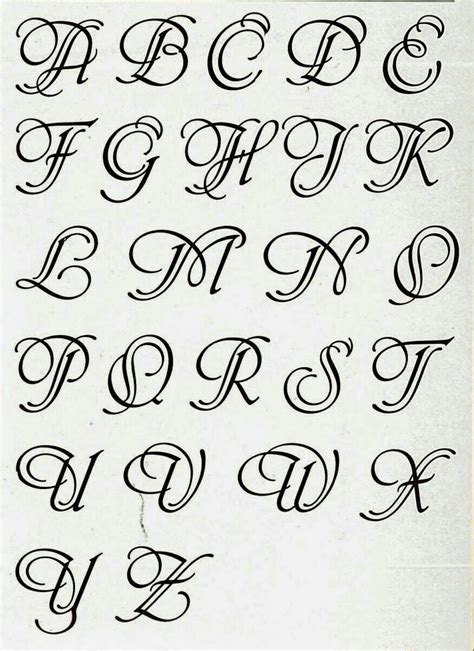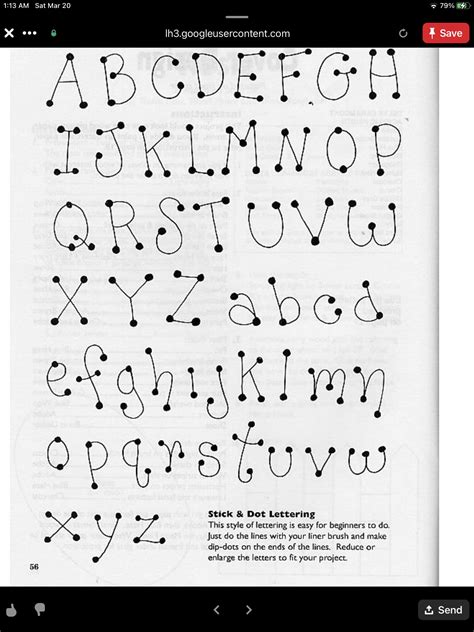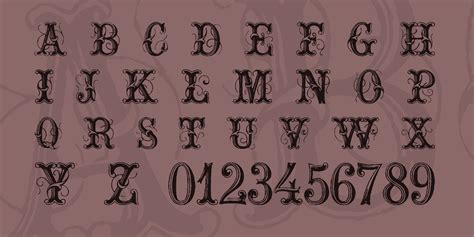
In the world of graphic design and typography, the art of lettering styles and fonts plays a pivotal role in conveying messages effectively. Whether you're designing a logo, creating a poster, or crafting a website, the choice of lettering styles and fonts can significantly impact the overall aesthetic and readability of your work. This blog post delves into the intricacies of lettering styles and fonts, exploring their importance, different types, and how to choose the right ones for your projects.
Understanding Lettering Styles and Fonts
Lettering styles and fonts are the building blocks of typography. They encompass the design and arrangement of letters, numbers, and symbols. Understanding the basics of lettering styles and fonts is crucial for any designer aiming to create visually appealing and effective designs.
The Importance of Lettering Styles and Fonts
Lettering styles and fonts are more than just aesthetic choices; they serve functional purposes as well. Here are some key reasons why they are important:
- Readability: The primary function of any font is to ensure that the text is easily readable. Different fonts have varying levels of readability, and choosing the right one can make a significant difference in how well your message is conveyed.
- Brand Identity: Fonts are a crucial element of brand identity. A well-chosen font can help establish a brand's personality and make it more recognizable.
- Aesthetic Appeal: The visual appeal of a design is greatly influenced by the lettering styles and fonts used. Aesthetically pleasing fonts can enhance the overall look and feel of a design.
- Emotional Impact: Different fonts evoke different emotions. For example, serif fonts often convey a sense of tradition and reliability, while sans-serif fonts can appear modern and clean.
Types of Lettering Styles and Fonts
Lettering styles and fonts come in a wide variety of types, each with its unique characteristics. Here are some of the most common types:
Serif Fonts
Serif fonts are characterized by the small lines or strokes, known as serifs, that extend from the main strokes of the letters. These fonts are often associated with tradition and formality. Examples include Times New Roman and Georgia.
Sans-Serif Fonts
Sans-serif fonts do not have the small lines or strokes at the ends of the letters. They are often seen as more modern and clean. Examples include Arial and Helvetica.
Script Fonts
Script fonts mimic handwriting or calligraphy. They are often used for invitations, logos, and other designs where a personal touch is desired. Examples include Pacifico and Allura.
Display Fonts
Display fonts are designed for large sizes and are often used in headlines, posters, and other large-format designs. They can be highly decorative and are not typically used for body text. Examples include Lobster and Playfair Display.
Monospaced Fonts
Monospaced fonts have uniform width for each character, making them ideal for coding and other technical applications. Examples include Courier and Consolas.
Handlettered Fonts
Handlettered fonts are created by hand and then digitized. They often have a unique, personal touch and are used in designs where authenticity is important. Examples include Homemade Apple and Brush Script.
Choosing the Right Lettering Styles and Fonts
Selecting the right lettering styles and fonts for your project involves considering several factors. Here are some tips to help you make the best choice:
Consider the Purpose
Think about the purpose of your design. Is it for a formal document, a casual invitation, or a playful poster? The purpose will guide your choice of font.
Match the Tone
Ensure that the font matches the tone of your message. For example, a serif font might be more appropriate for a formal announcement, while a script font could be better for a wedding invitation.
Readability
Always prioritize readability. Choose fonts that are easy to read, especially for body text. Avoid overly decorative fonts for large blocks of text.
Consistency
Maintain consistency in your font choices. Using too many different fonts can make your design look cluttered and unprofessional. Stick to a maximum of two or three fonts for a cohesive look.
Pairing Fonts
When using multiple fonts, ensure they complement each other. A common approach is to pair a serif font with a sans-serif font. Here are some popular font pairings:
| Serif Font | Sans-Serif Font |
|---|---|
| Times New Roman | Arial |
| Georgia | Helvetica |
| Garamond | Verdana |
💡 Note: When pairing fonts, consider the contrast in style and weight to create a balanced design.
Tips for Effective Use of Lettering Styles and Fonts
Here are some additional tips to help you make the most of lettering styles and fonts in your designs:
- Use Hierarchy: Establish a visual hierarchy by using different font sizes and styles for headings, subheadings, and body text.